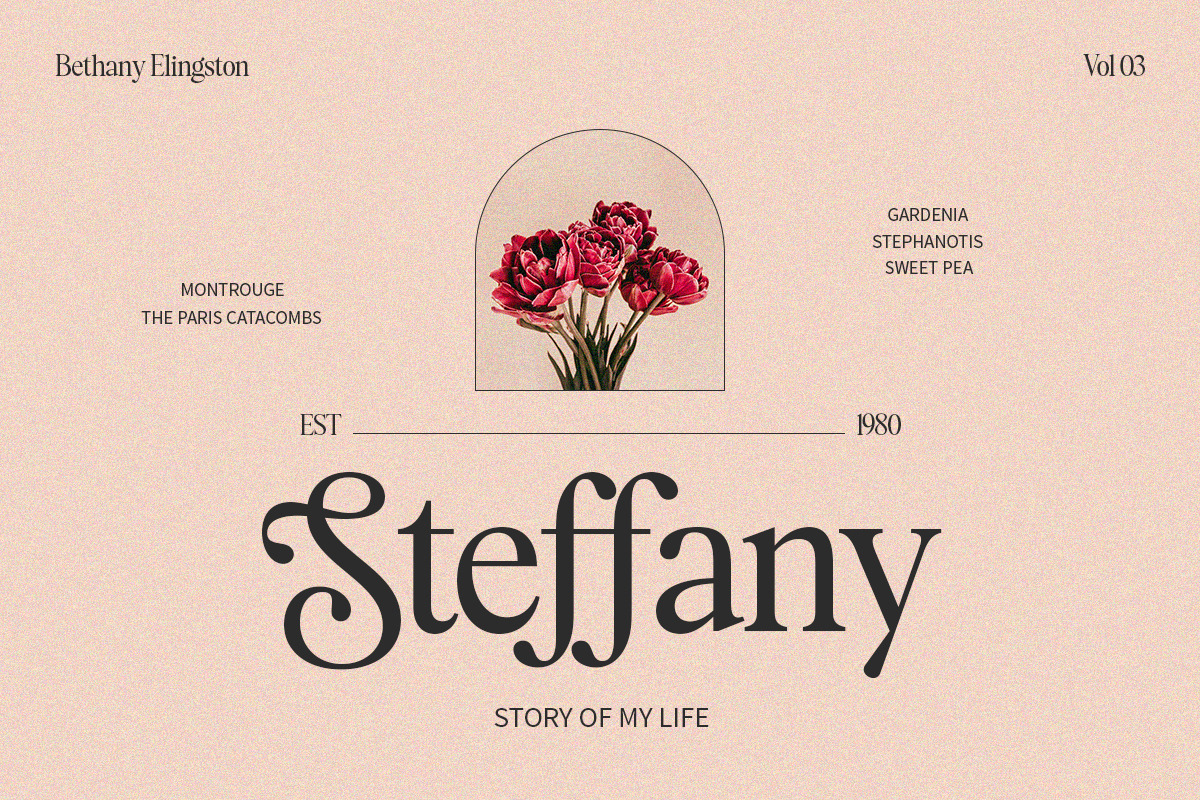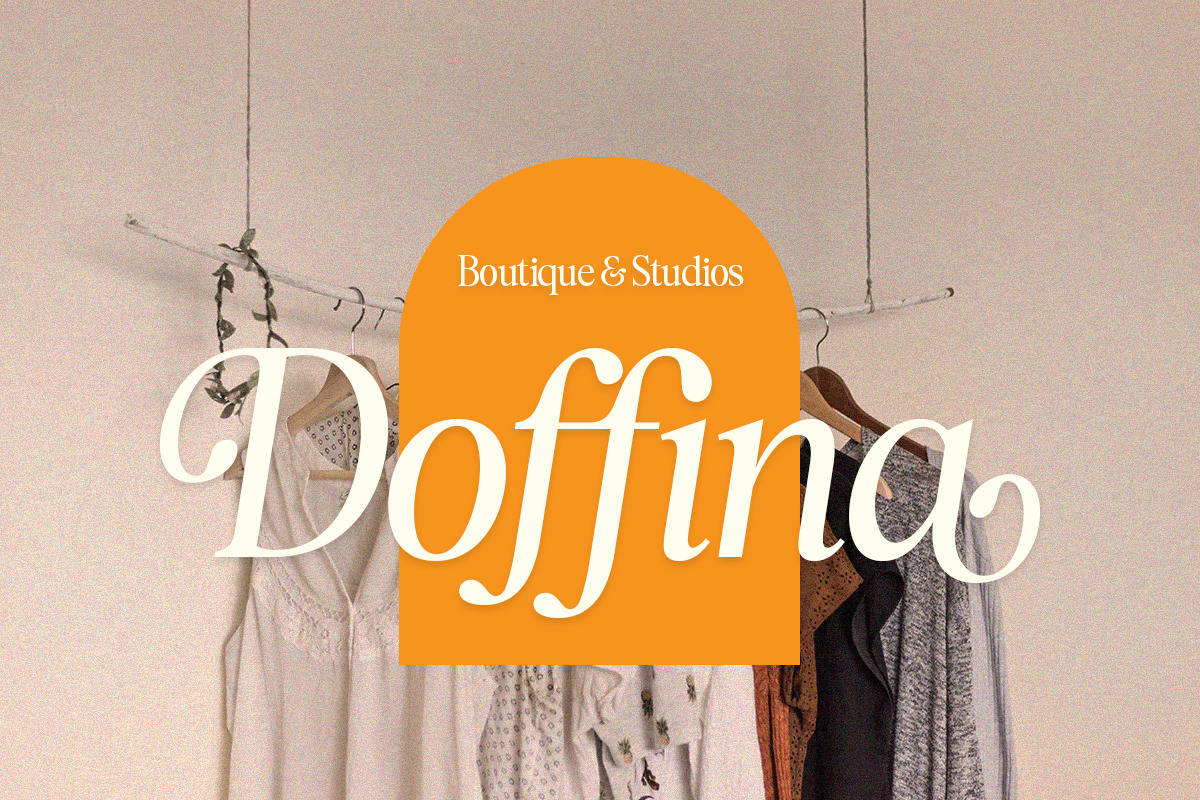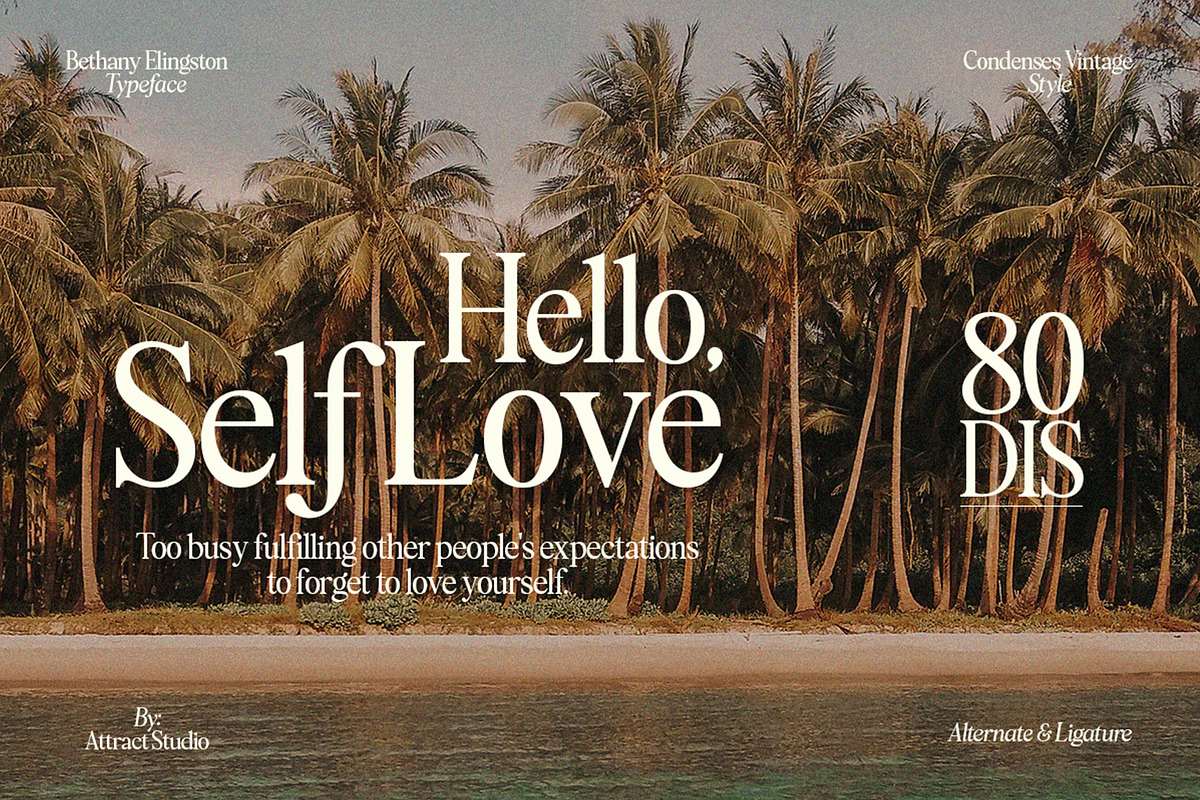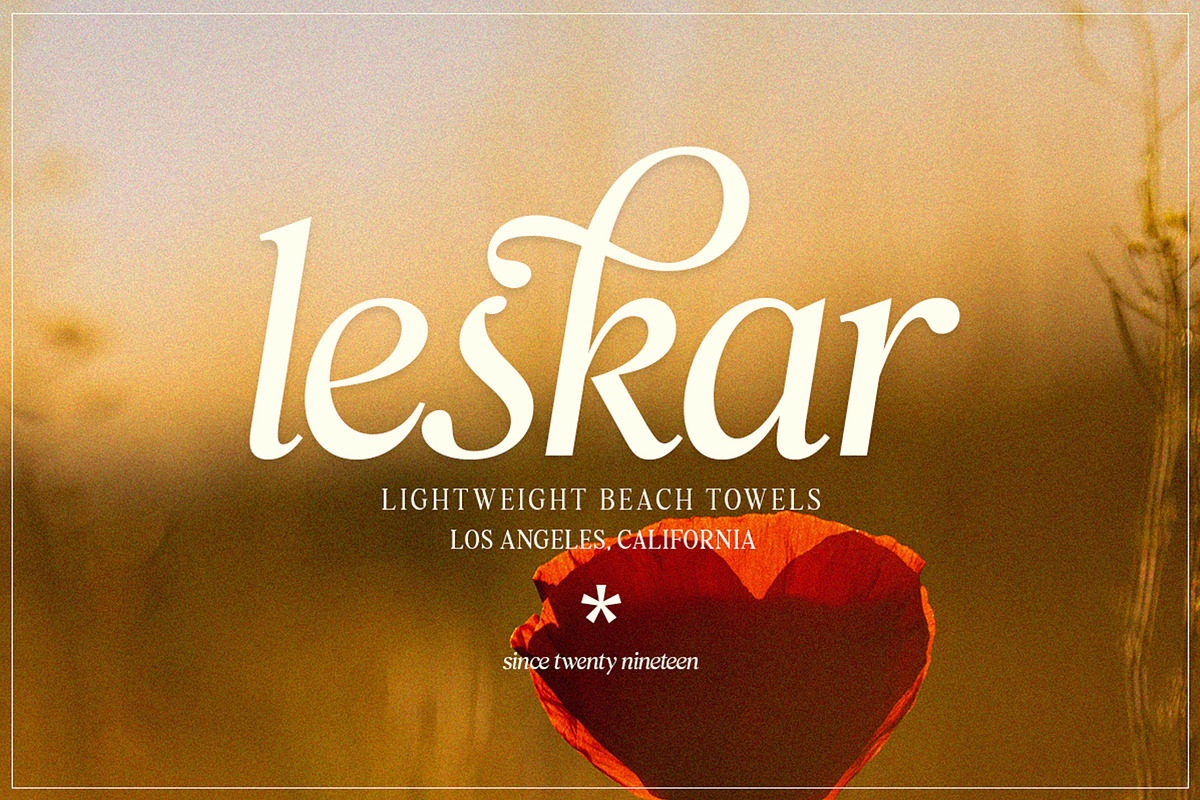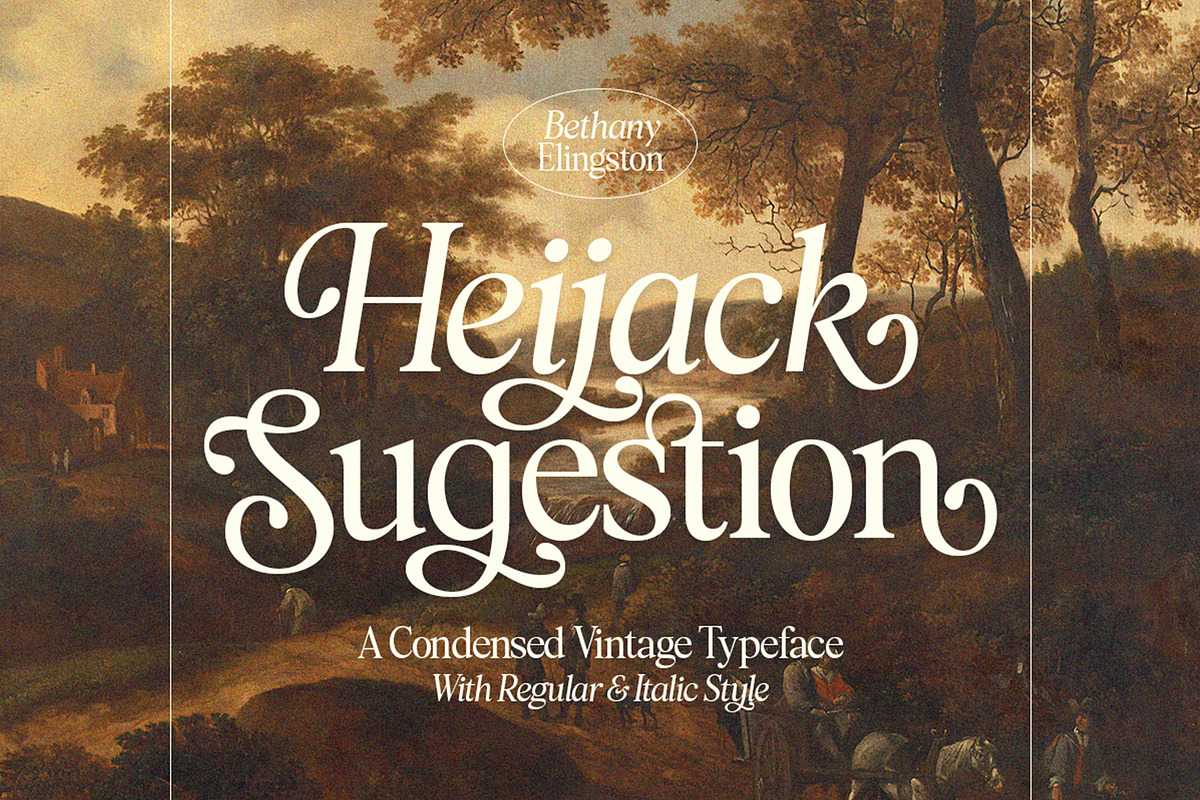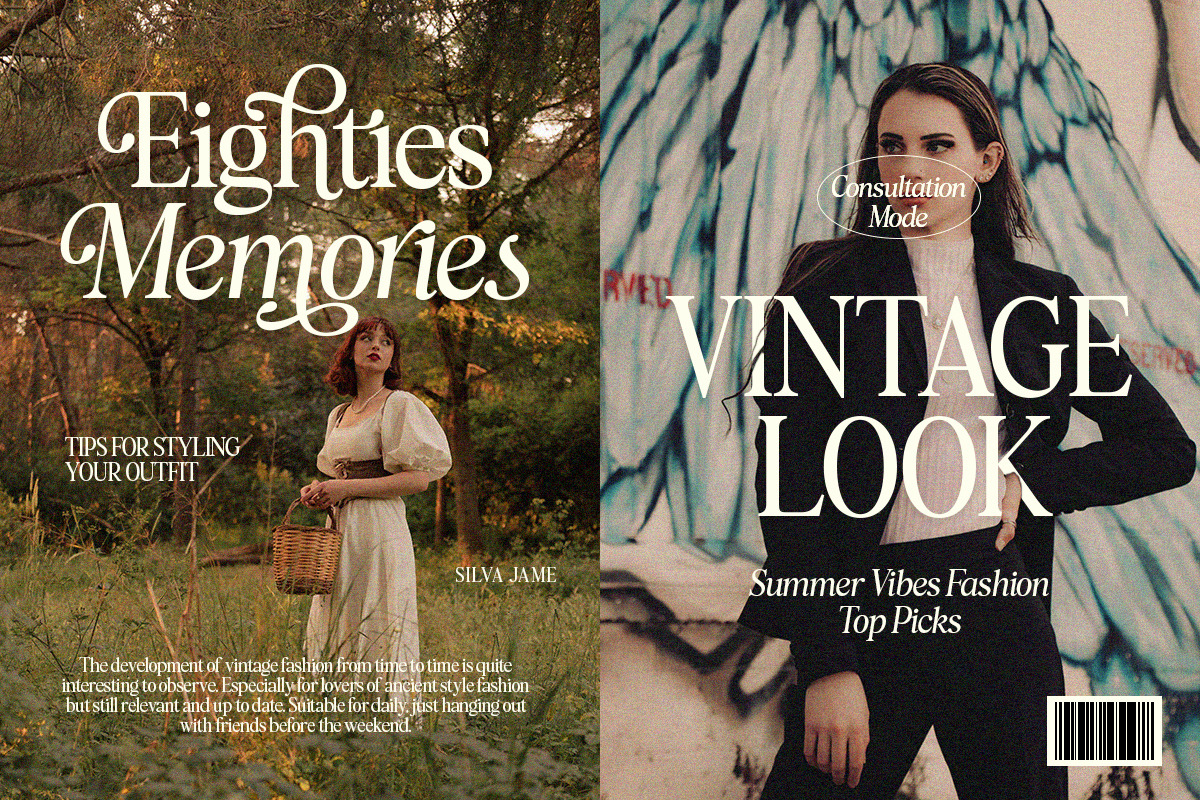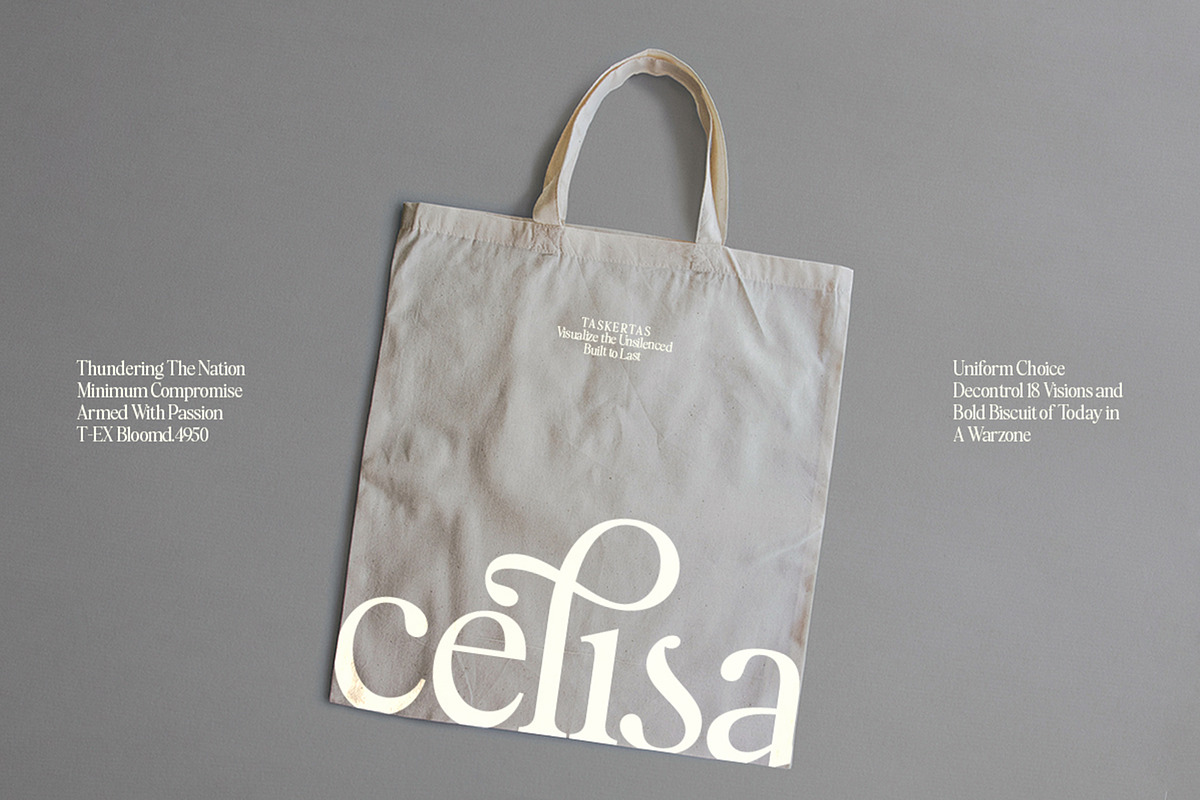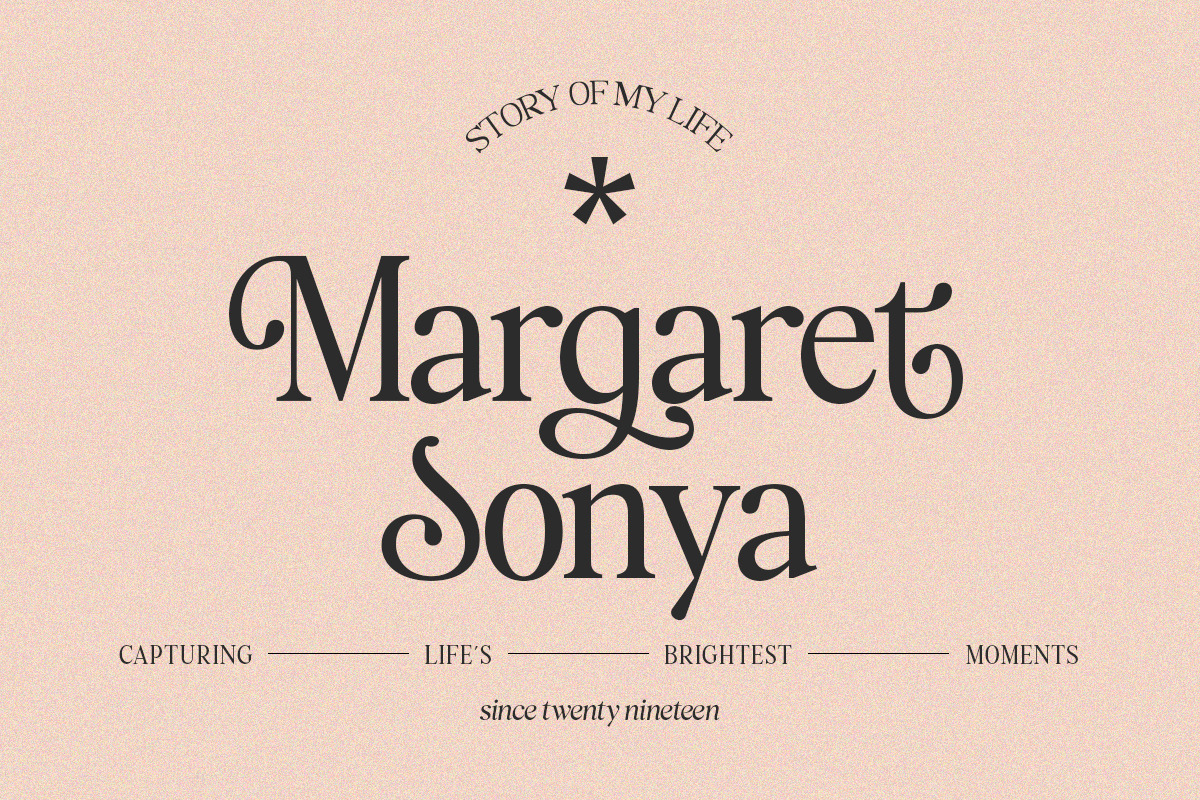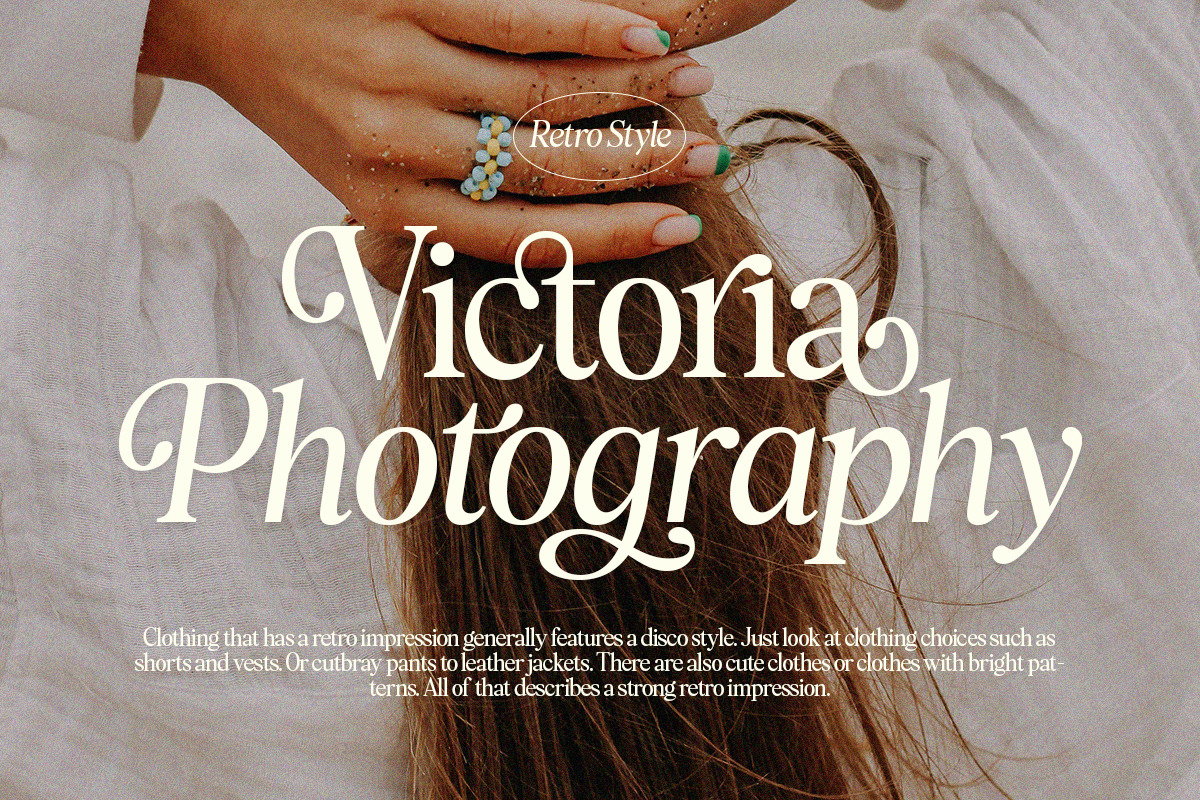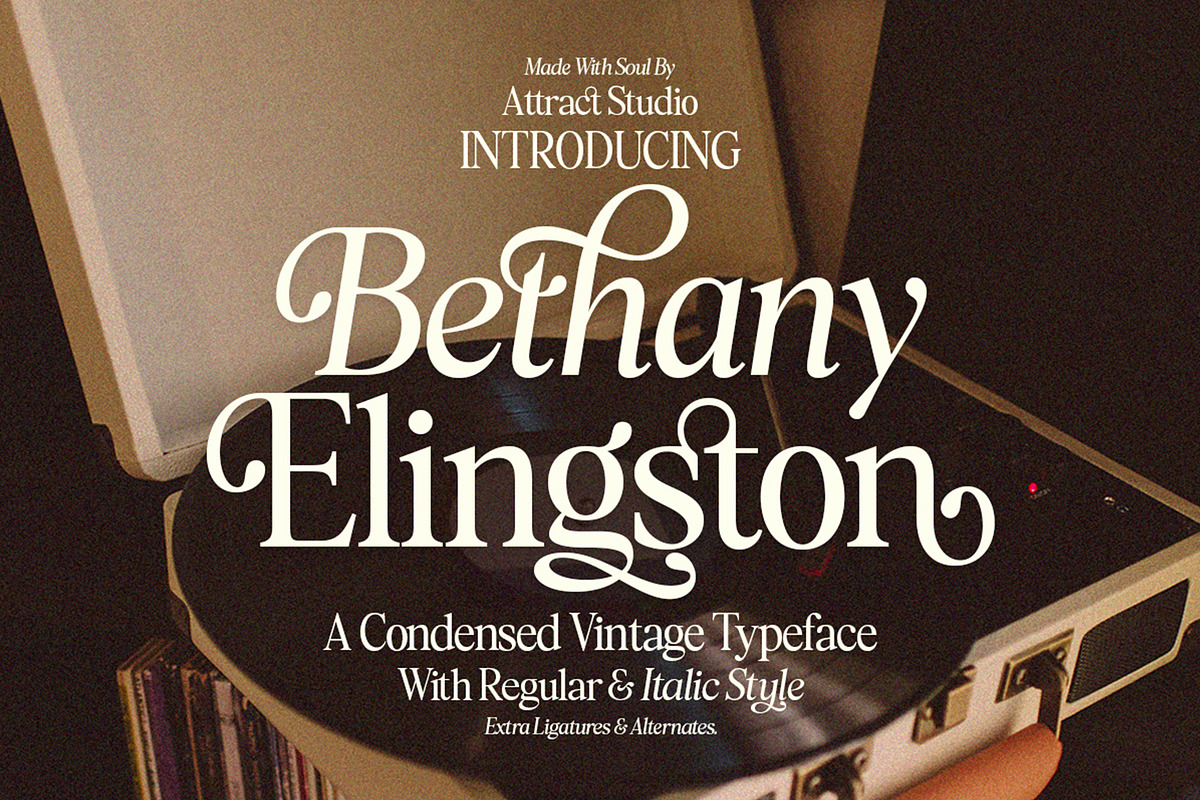
Bethany Elingston
Bethany Elingston is a serif font with contrasting characters inspired by old-style serifs and condensed serifs. Has dozens of great Alternatives and Binders to combine in creating Labels, signage, titles, logos and many other creative projects.